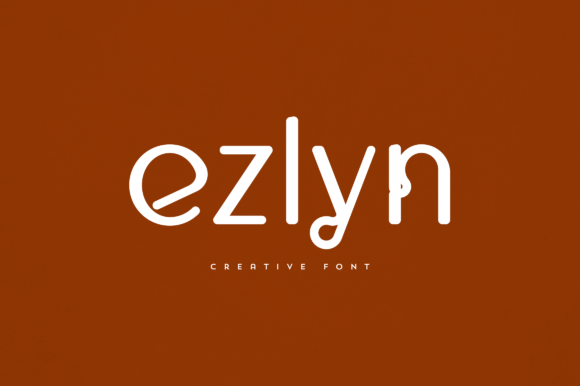
Introducing Ezlyn Font, a visionary display font that will captivate your audience and leave a lasting impression. With its delicate curves and timeless elegance, Ezlyn transforms the ordinary into the extraordinary.
Step into a world of sophisticated typography with Ezlyn. Each letter is carefully crafted to exude grace and style, promising to elevate your designs to new heights. Captivating logos, mesmerizing branding materials, and unforgettable headlines await.
Ezlyn's versatility knows no bounds. Whether you seek a touch of charm for your home decor, sophisticated packaging for your products, or a dash of flair in your magazines, this multifaceted font delivers. Transform your designs into visual masterpieces that speak volumes.
But Ezlyn's magic truly shines when it takes center stage. As an overlay on your beloved images, it adds a touch of allure, drawing the eye to your message with irresistible grace. Watch as your audience falls head over heels for your enchanting creations.
Your search for the perfect wedding book font ends here. Ezlyn's delicate embrace will encapsulate your special moments, weaving a tale of love and elegance through every page. Your wedding album will become a cherished keepsake, a testament to the timeless beauty of your union.
Let Ezlyn be your creative companion, guiding you to typographic brilliance. Its charm will make your designs irresistible, capturing hearts and leaving an unforgettable mark. Embrace the allure of Ezlyn today and embark on a journey of creative enchantment.